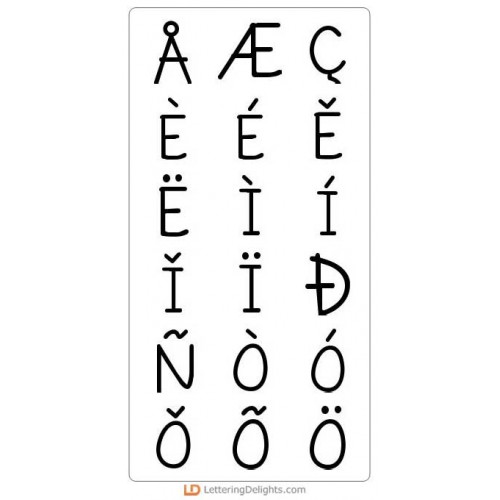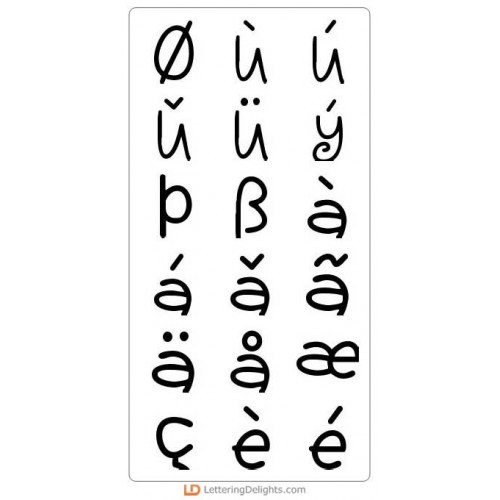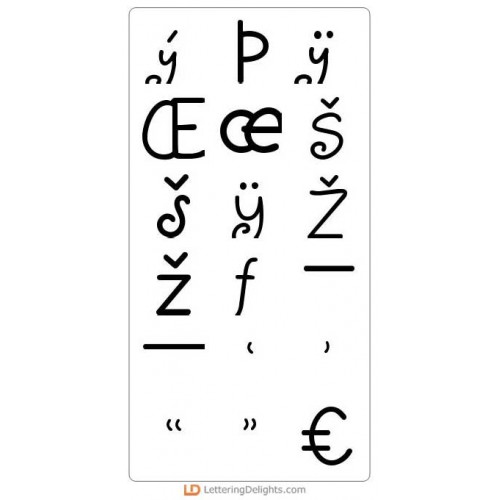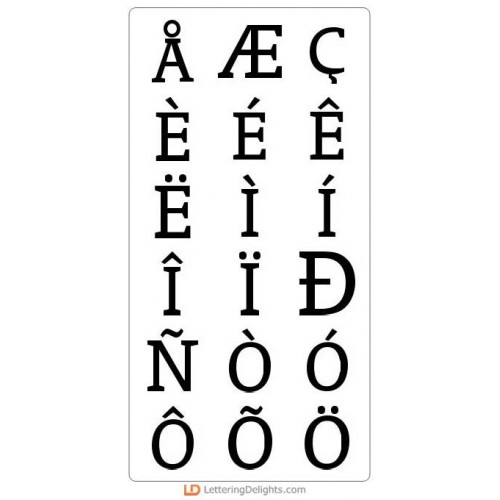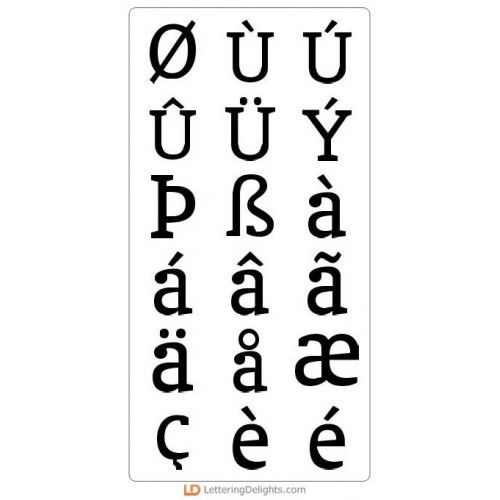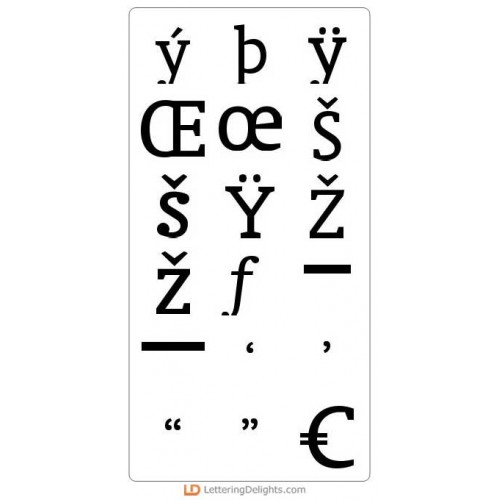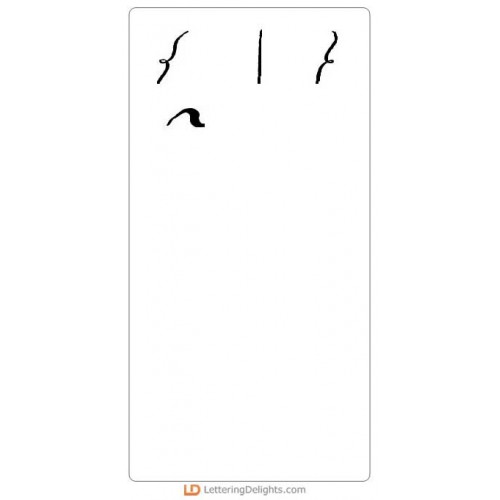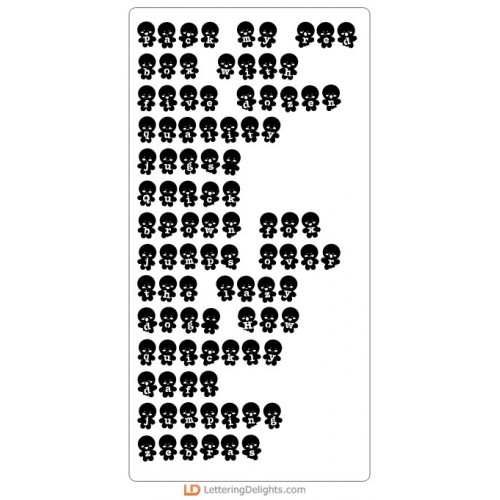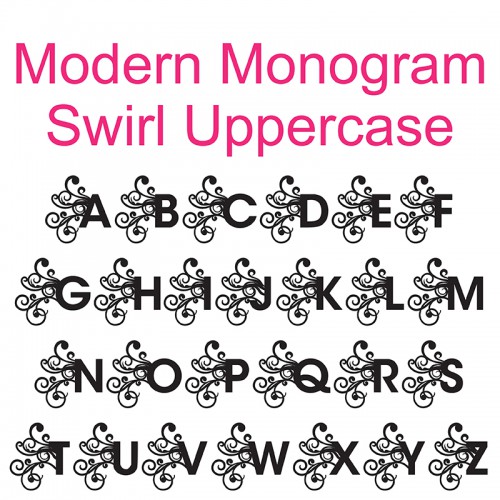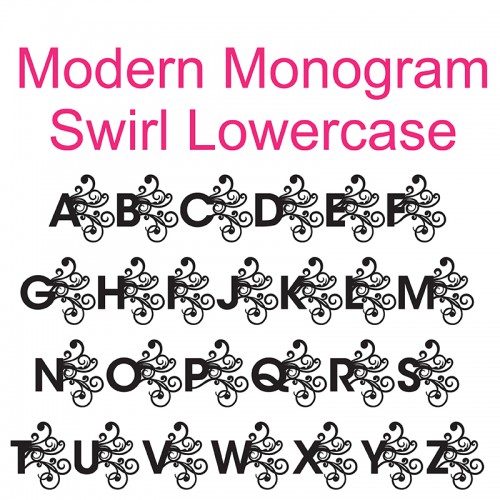
2. Silhouette Super Bundle - Font Bundle
LD Hang Ten - Font
This font has fun written all over it. Its versatile style makes it useful for all sorts of laid-bac..
LDJ Jilly Nilly - Font
LDJ Jilly Nilly is tall, thin and slanted, the perfect recipe for a fun font. Makes great titles or..
LD Little Piggy - Font
LD Little Piggy is an adorable font straight from a fairytale story book. LD Little Piggy's handwri..
LD Grandpa - Font
LD Grandpa is such a great font for any journaling application...and definitely not just for your ma..
LD Woodland - Font
The clean lines of LD Woodland make it a must-have font. It is right at home with just about any cr..
LD Free Spirit - Font
LD Free Spirit is a tall and skinny alphabet with plenty of spirit!..
LD Modern Slab - Font
LD Modern Slab...what's in a name? Well, this font lives up to it's name. It has clean lines, yet v..
LD Big Kahuna - Font
LD Big Kahuna is a very large and thick font with a Hawaiian style. Get your point across, but in an..
LD Mosquito - Font
LDJ Whale Tail - Font
LDJ Whale Tail is chunky and substantial, and perfect for getting a little attention. Pair it up wit..
LD Jambalaya - Font
Hot Jambalaya! This font is kickin' out its own style in a bold and playful way. The toggled and mix..
LD Neat Pete - Font
Keeping everything in neat ordered rows with a little bit of casual funk is the essence of LD Neat P..
LD Kazaam - Font
You'll think you stepped right into a comic book, LD Kazaam is big, bold, and fun!..
SNF Clarissa - Font
Clarissa is a fun-loving font with curly letters and loopy accents...
LD Blankie - Font
LD Blankie is a typewriter styled font with a few fun twists just to keep you on your toes...
LD Hand-written Greetings - Font
ZP Gingerbread Stencil - FN
This Stencil Font was made with cutting machines in mind. The stenciled letters cut out of litte gin..
PN Peach Preserves Solid - FN
PN Modern Monogram Swirl - FN
This is a true monogram font. Type the left half with uppercase. Type the right half with lowercase...
ZP Raisin Cookie - FN
This fun and whimsical hand-writing font has a very oversized lowercase...
ZP Southern Charm - FN
This curly formal and fancy font had curly letters throughout...
PN Cilantro Leaf - FN
This gorgeous and fun script has a bit of a bouncy baseline...
ZP Jillowy - FN
Bold and fat handwritten script..
LD Brown Nose - FN
LD Celebrate More - FN
Cursive, cute, curly, fun, decorative font..
LD Kraken - FN
LDJ Jasper Hand - FN
PN Hellow Gorgeous - FN
This beautiful lowercase-only font has an "uppercase" with extreme flourish and curls and the lowerc..
PN Sugar Britches - FN
This fun and whimsical serif font has curls throughout..
PN Unicorn Hugs - FN
Another handwriting font with nice thicks and thins throughout...
SNF Classy Charm - FN
SNF Dear Miss Rose
SNF Little Star - FN
Bold and funky font..
ZP Cupcake Stencil - FN
Happy faces, sprinkles, and an occassional cherry make these delicious cupcake lettering great...